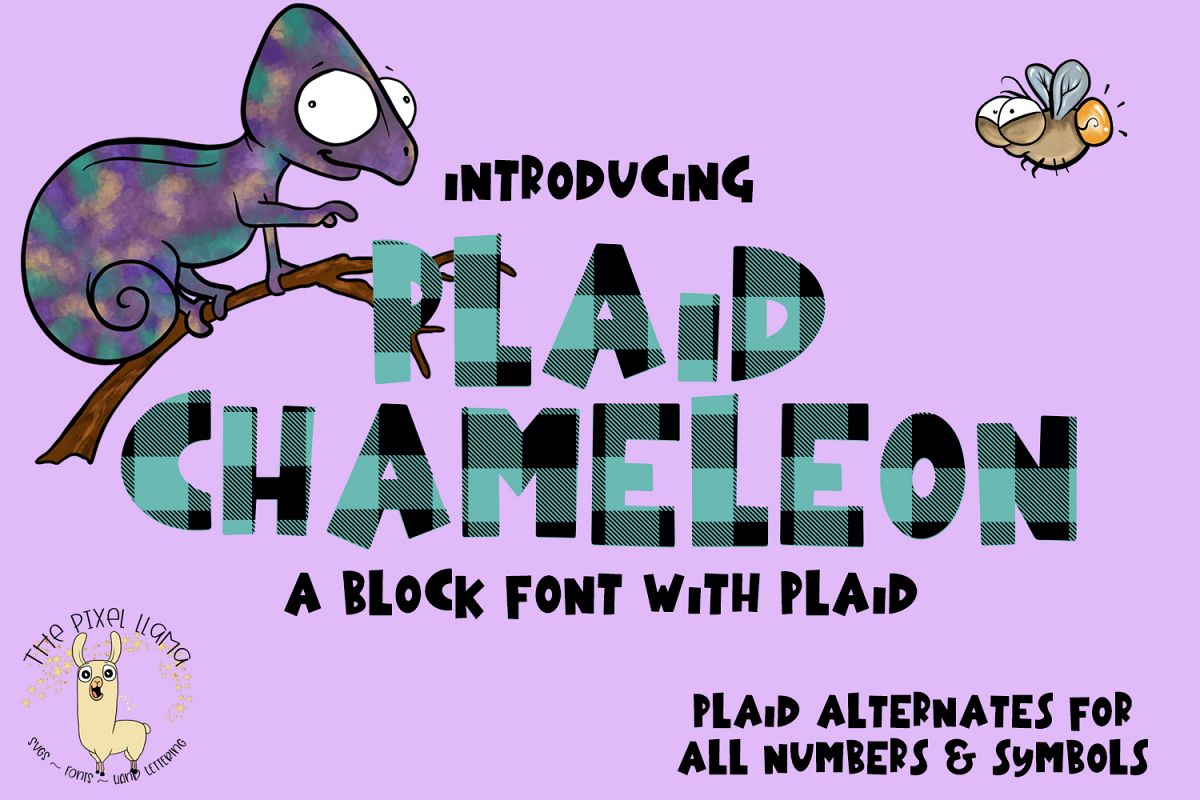
A Block Font with Plaid! Perfect for crafters.
Plaid Chameleon - A block font with plaid - numbers and symbols have plaid alternates - easy to use. Type out your text in small and type again in caps for plaid overlay.
Comes with A-Z smalls in block and capital plaid.
Numbers 0-9 with alternates in plaid
Symbols with alternates in plaid